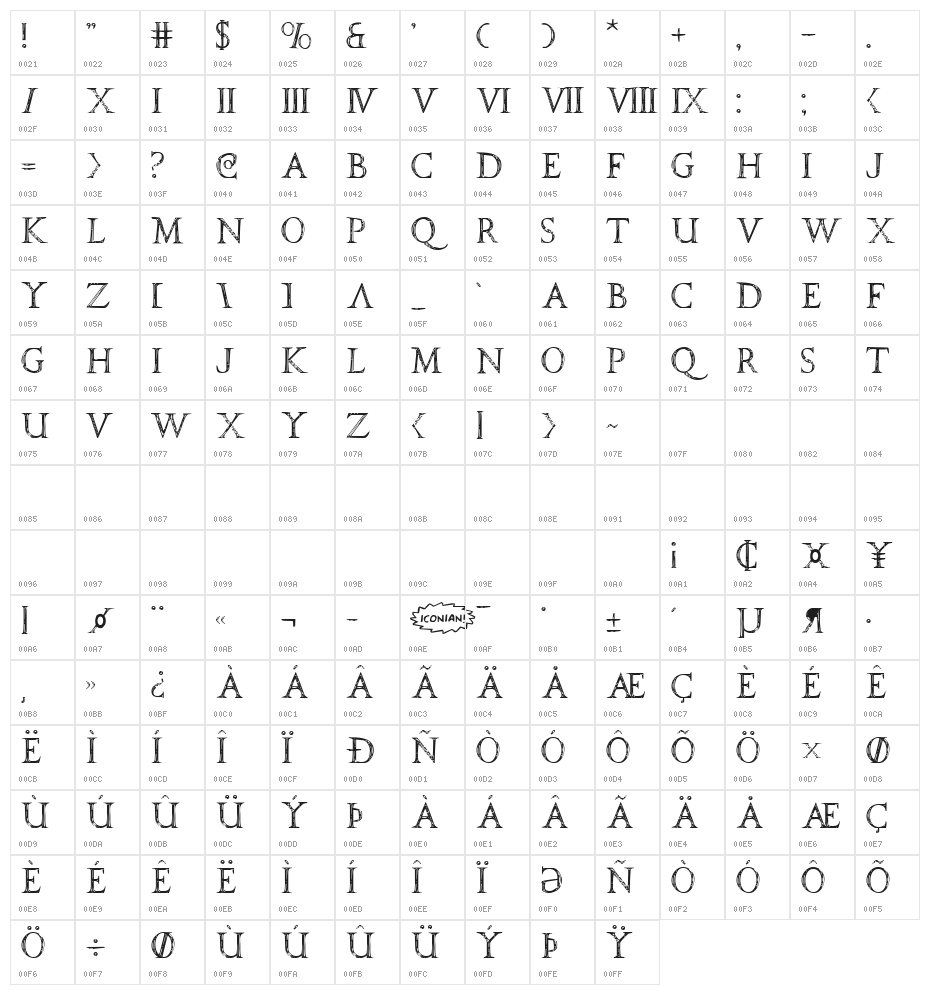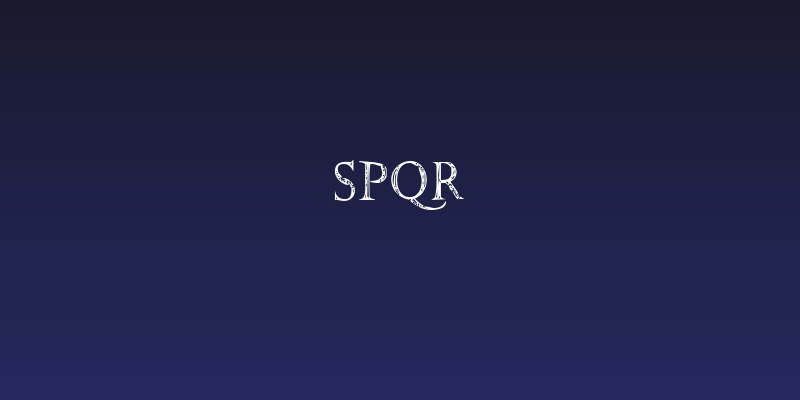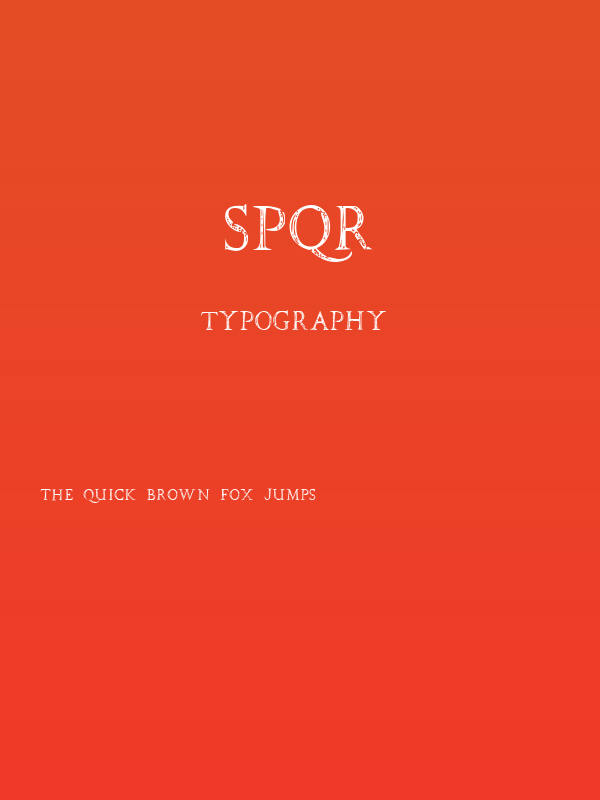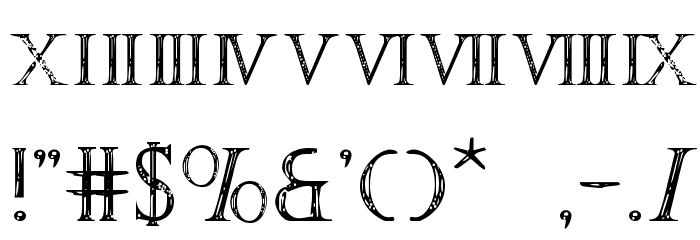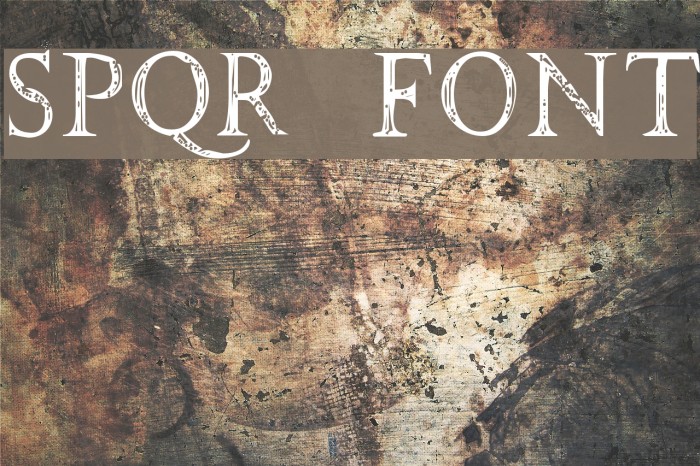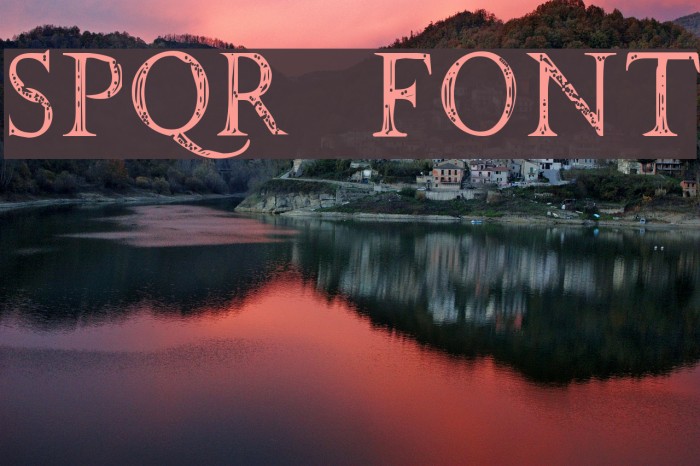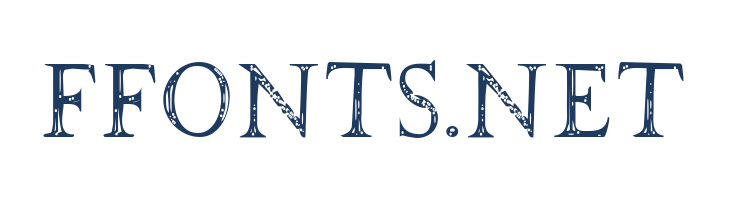
SPQR Font
✎ Serif
| カテゴリ | Serif |
| 全体的なスタイル | Classic, Decorative |
| 用途 | Headlines, Logos, Book covers |
| おすすめプロジェクト | Ideal for historical-themed designs, artistic projects, book covers, and branding that requires a traditional yet unique touch. |